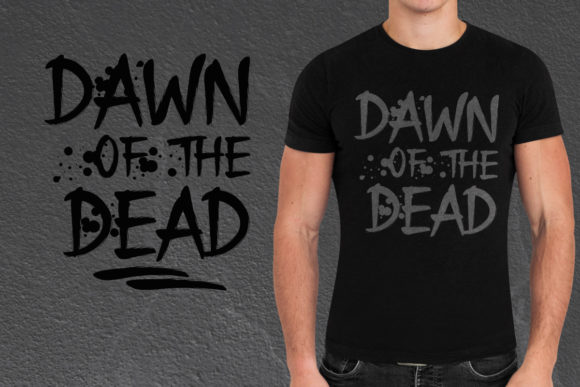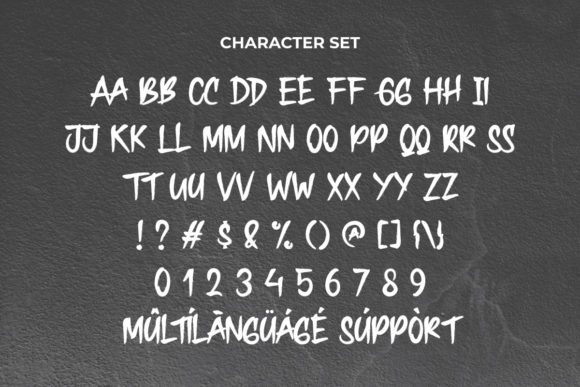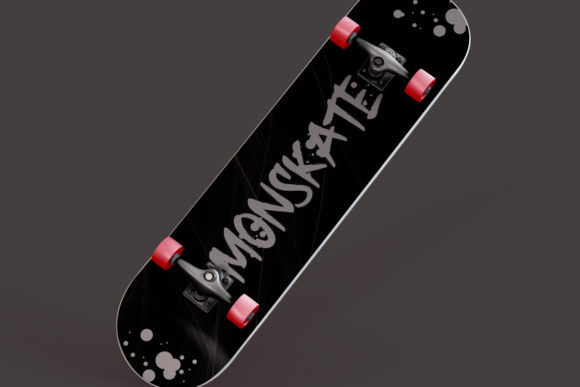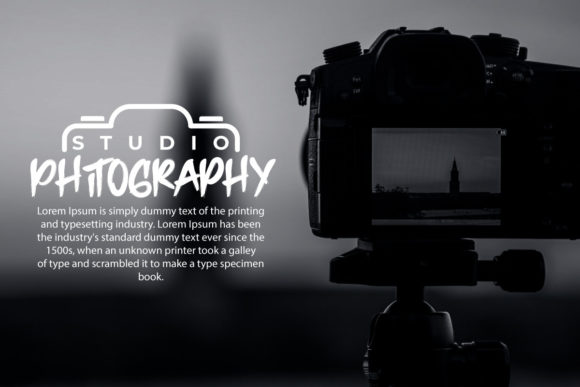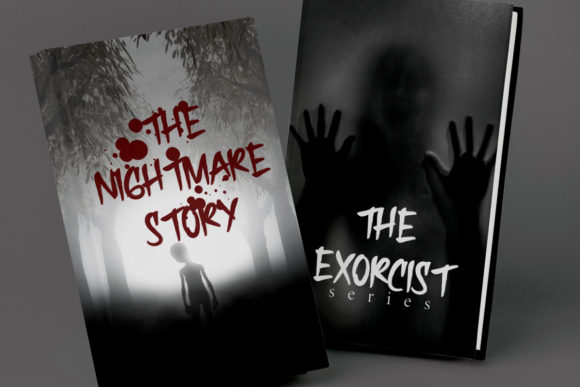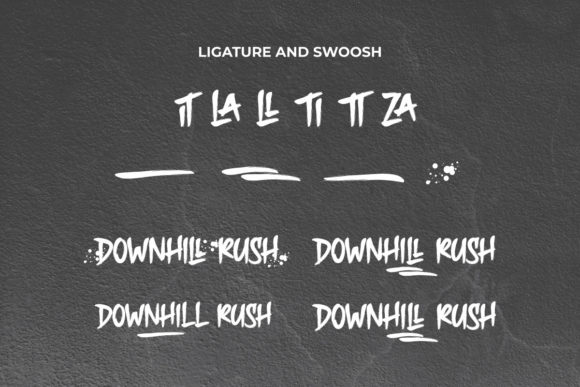
Unleash the Thrill with Downhill Rush Font: The Ultimate Sporty Display Typeface
Are you a designer or crafter looking for a font that embodies the essence of speed, thrill, and adventure? Look no further than Downhill Rush Font, a sporty rough display font that is sure to elevate your creative projects to the next level. With its exclusive style and rugged charm, Downhill Rush is the perfect typeface for horror movies, games, magazines, music, videos, sports, racing, and more.
What Makes Downhill Rush Font Stand Out?
Downhill Rush Font boasts a unique and stylish design that sets it apart from other fonts. Its sporty rough display style gives it a dynamic and edgy look that is sure to grab attention. The font’s rugged texture and bold lines evoke a sense of speed and energy, making it perfect for projects that require a bold and daring aesthetic.
Perfect for Horror Movies and Games
Downhill Rush Font’s bold and rugged design makes it an excellent choice for horror movies and games. The font’s edgy texture and sharp lines create a sense of tension and suspense, perfect for adding a thrilling touch to your project. Whether you’re creating a movie poster, game title, or promotional material, Downhill Rush Font is sure to make a lasting impression.
Great for Magazines, Music, and Videos
Downhill Rush Font is not just limited to horror movies and games. Its stylish and sporty design makes it a versatile typeface that can be used for a variety of creative projects. Use it for magazine titles, music album covers, or video intros to add a touch of excitement and energy to your content.
Why Designers and Crafters Love Downhill Rush Font
Designers and crafters love Downhill Rush Font for its unique and exclusive style. The font’s sporty rough display design makes it easy to read and recognize, even at small sizes. Additionally, the font’s rugged texture and bold lines give it a distinctive look that sets it apart from other fonts.
Key Features of Downhill Rush Font
- Sporty rough display font with a unique and stylish design
- Perfect for horror movies, games, magazines, music, videos, sports, racing, and more
- Rugged texture and bold lines evoke a sense of speed and energy
- Easy to read and recognize, even at small sizes
- Exclusive style that sets it apart from other fonts
Downhill Rush Font is a sporty rough display font that is sure to add a touch of excitement and energy to your creative projects. With its unique and stylish design, rugged texture, and bold lines, this font is perfect for horror movies, games, magazines, music, videos, sports, racing, and more. Whether you’re a designer or crafter, Downhill Rush Font is a must-have typeface that will help you create stunning and attention-grabbing designs.